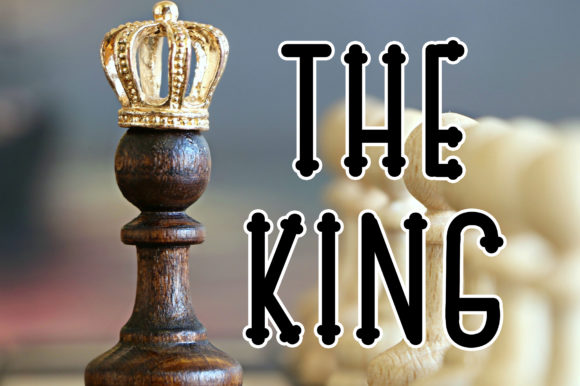
Sharp Sword Font – Free Download
Introduction to Sharp Sword Font
Sharp Sword is a display font that is decorated with the shape of a sword handle on the ends of some characters.
This font is inspired by the medieval era and can be used for multiple designs such as business cards, logos, presentations and so much more .
Key Features of Sharp Sword Font
Why Choose Sharp Sword Font?